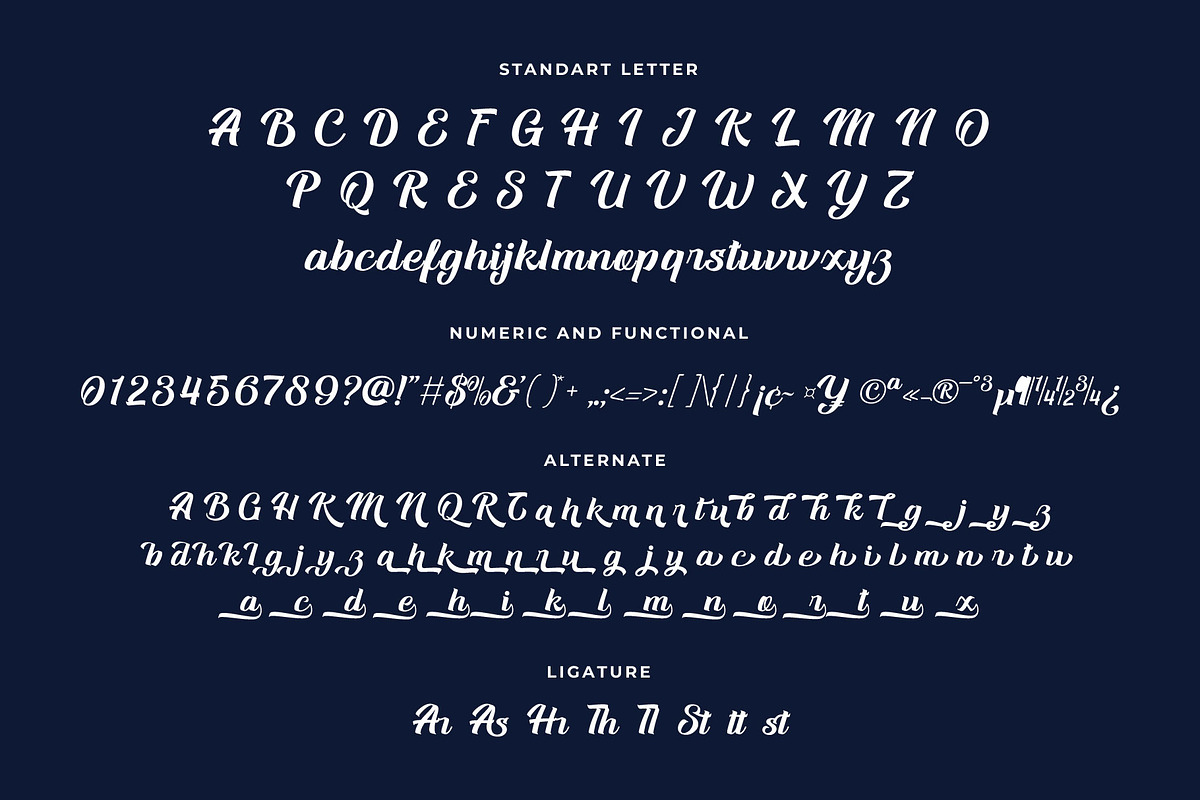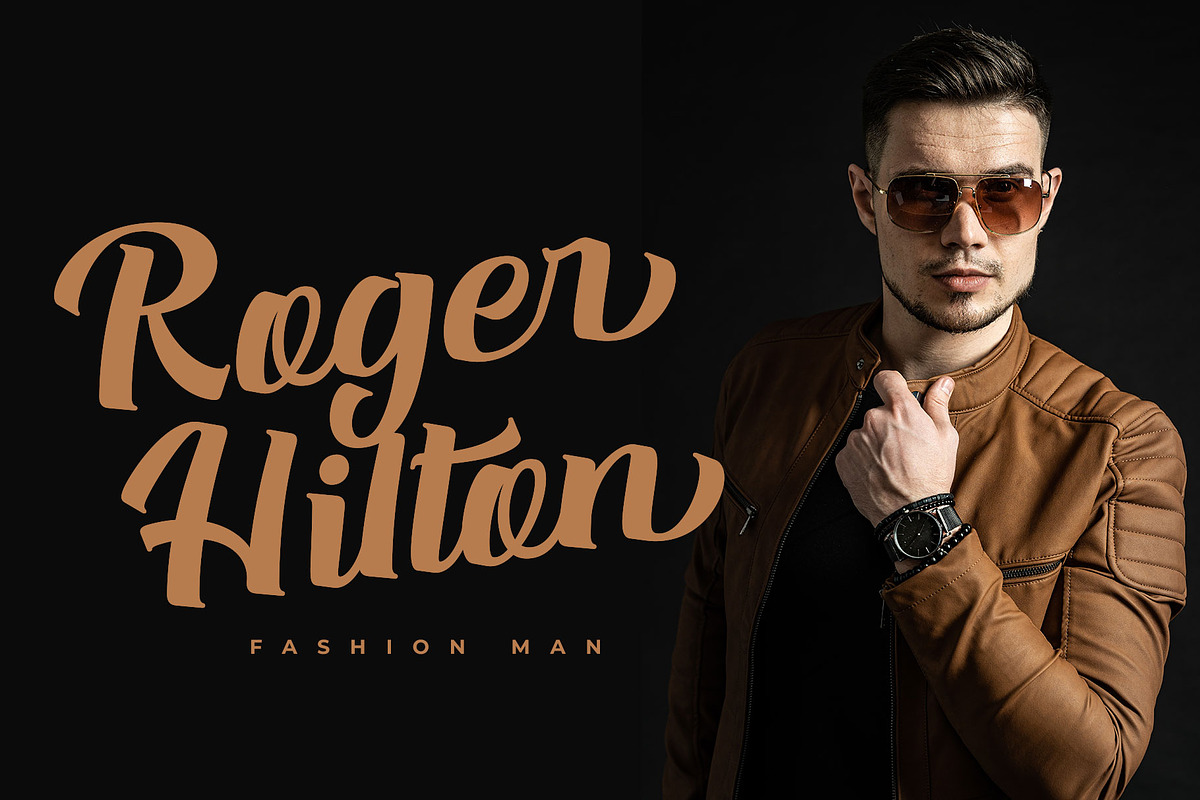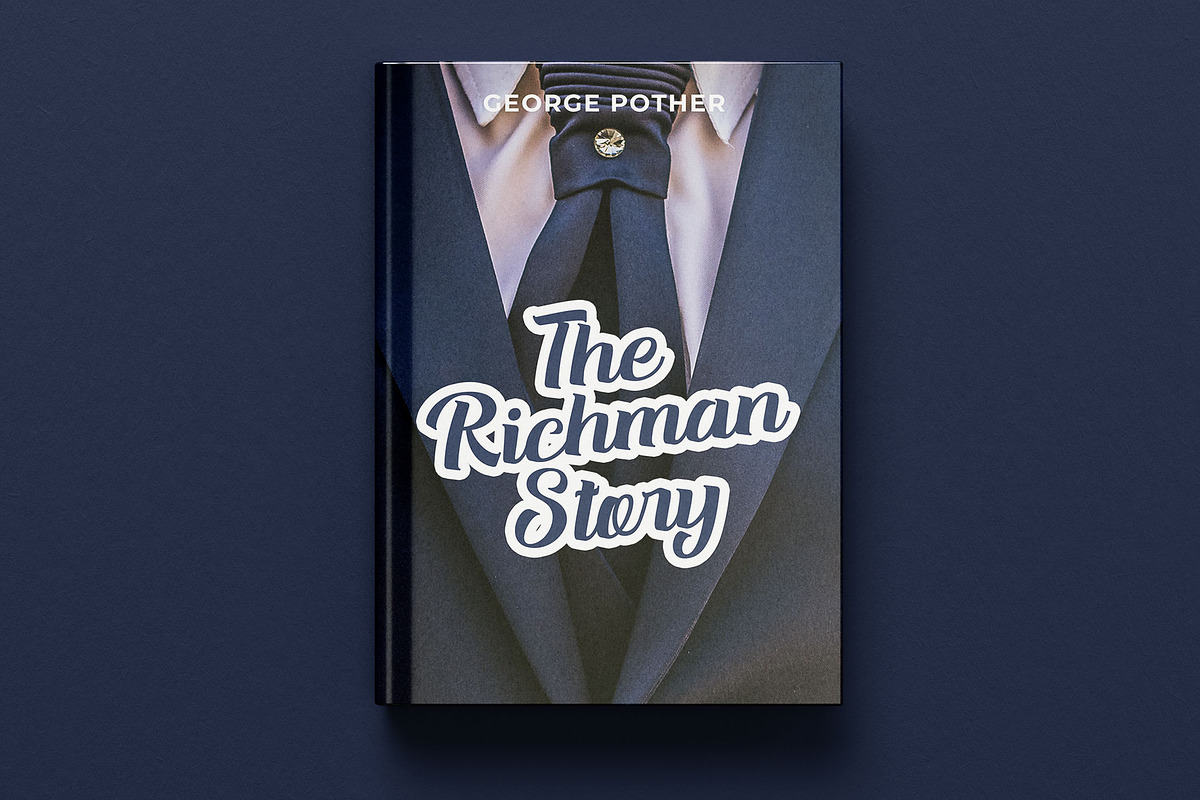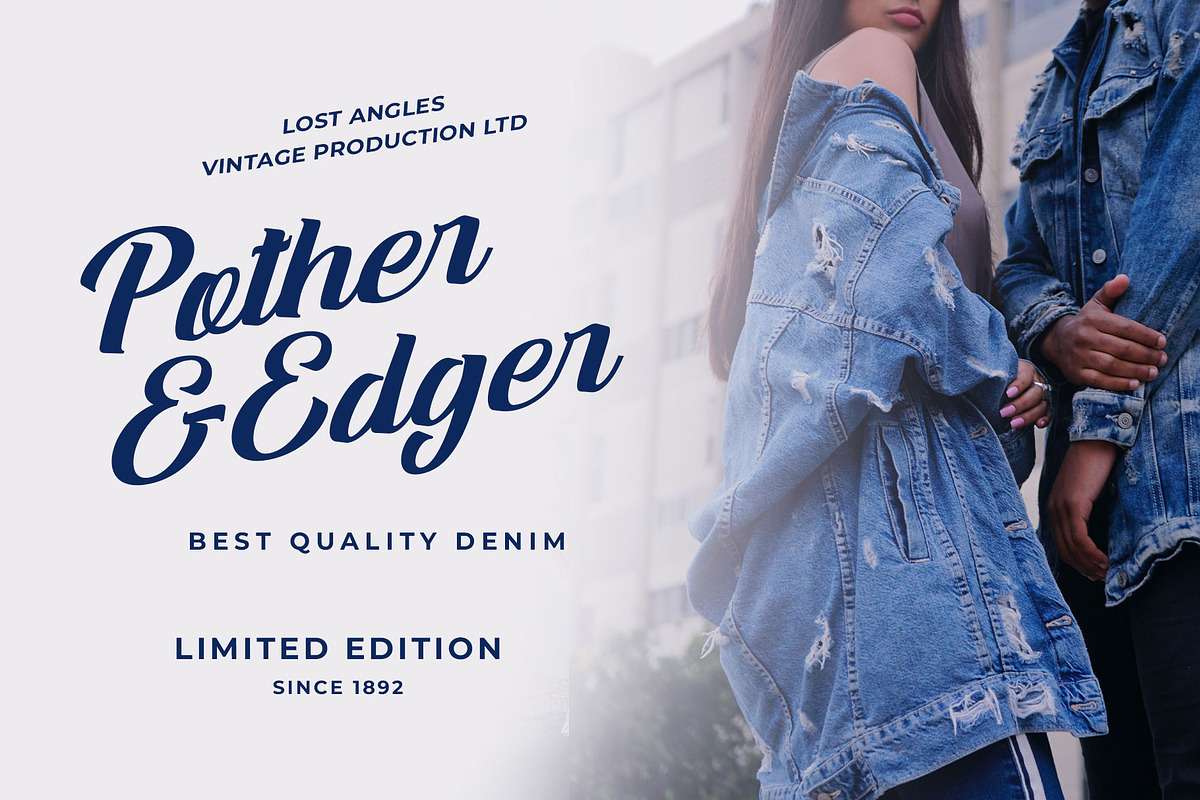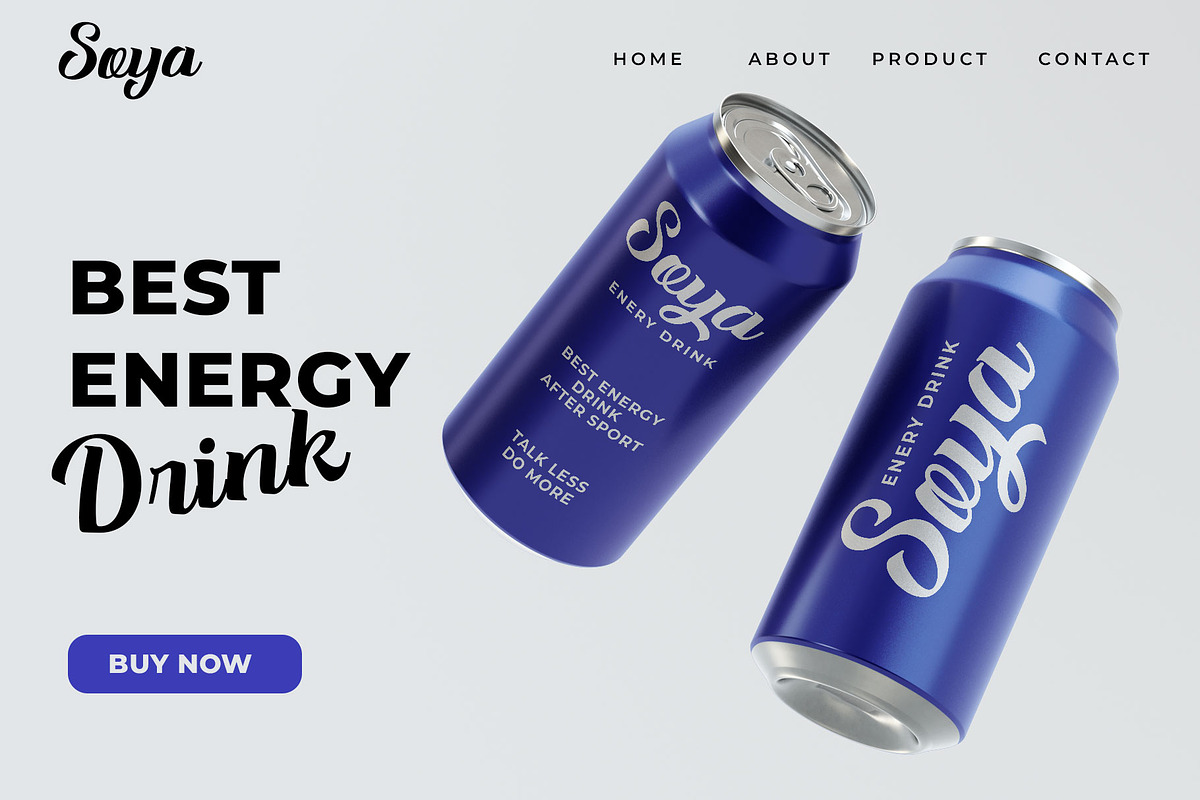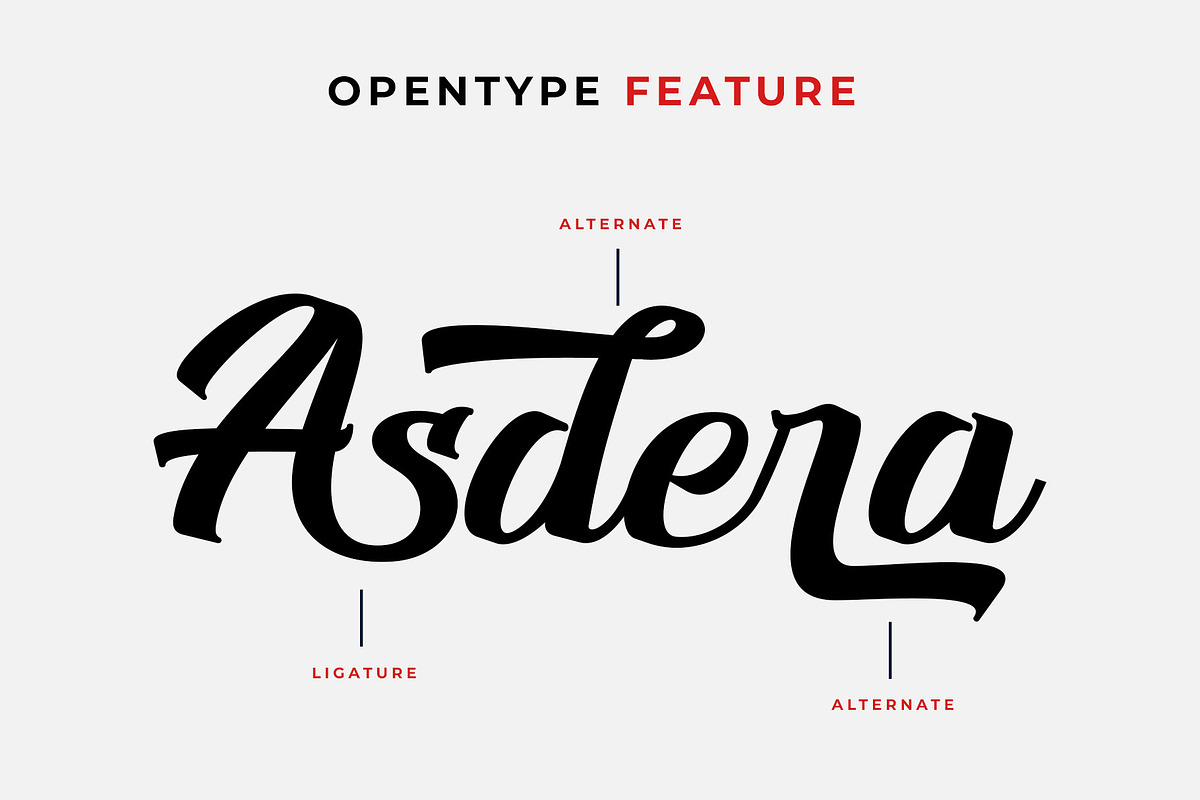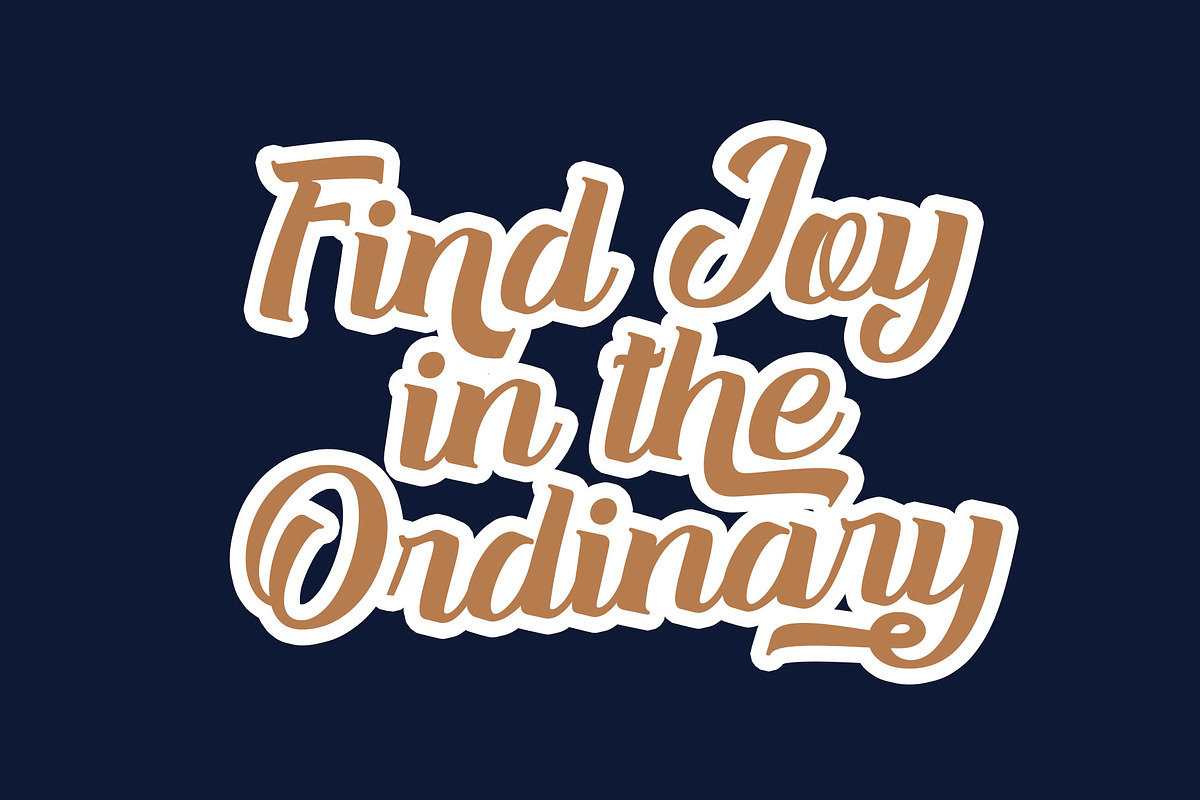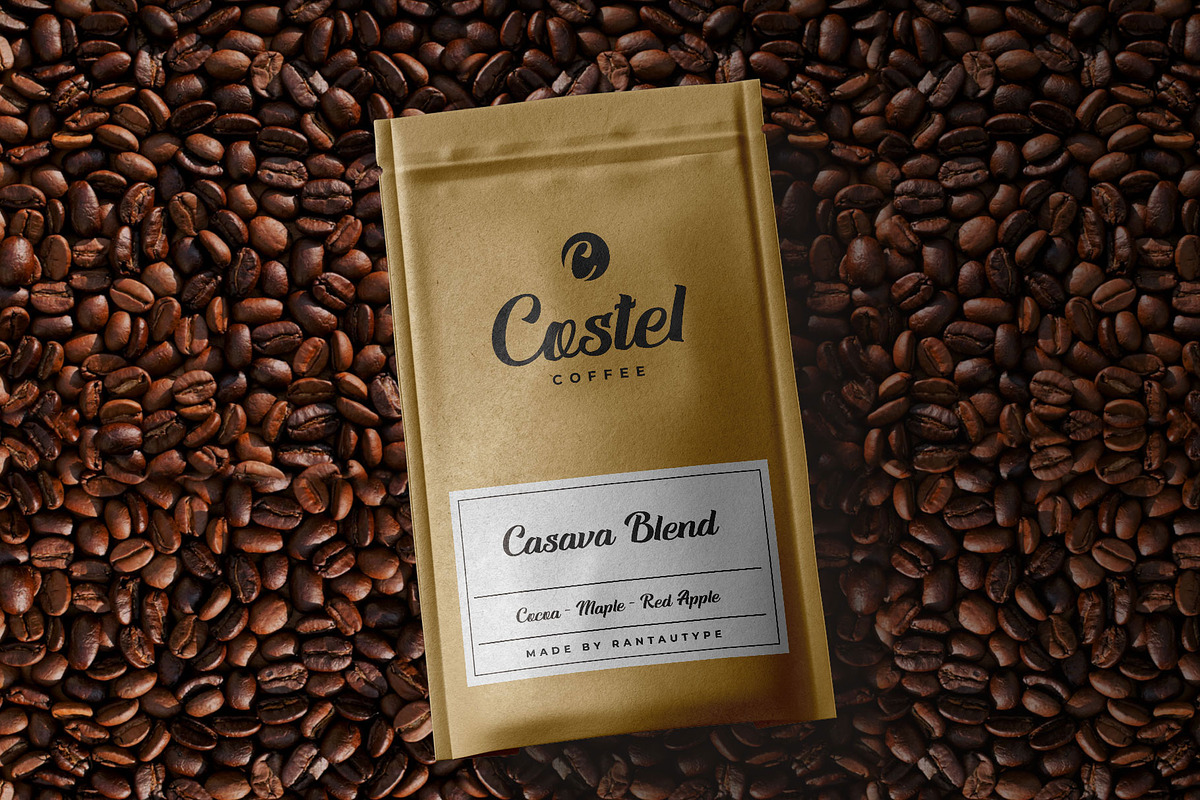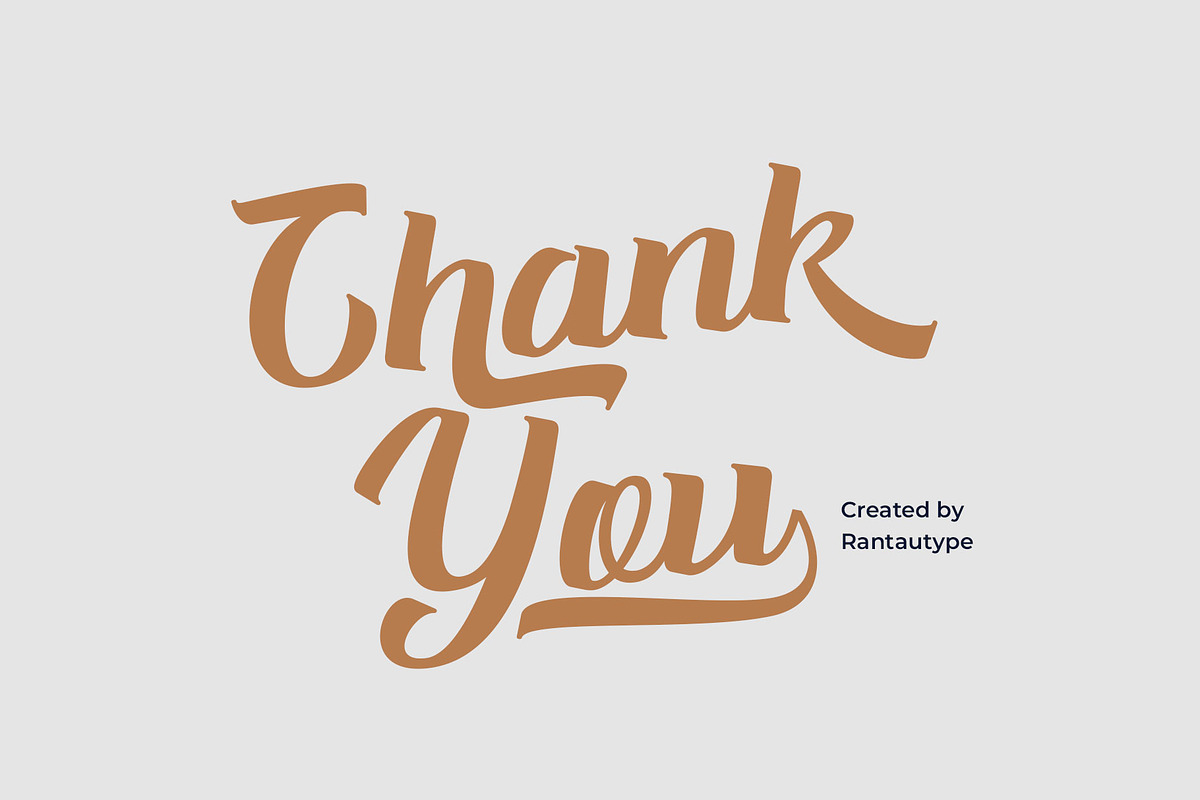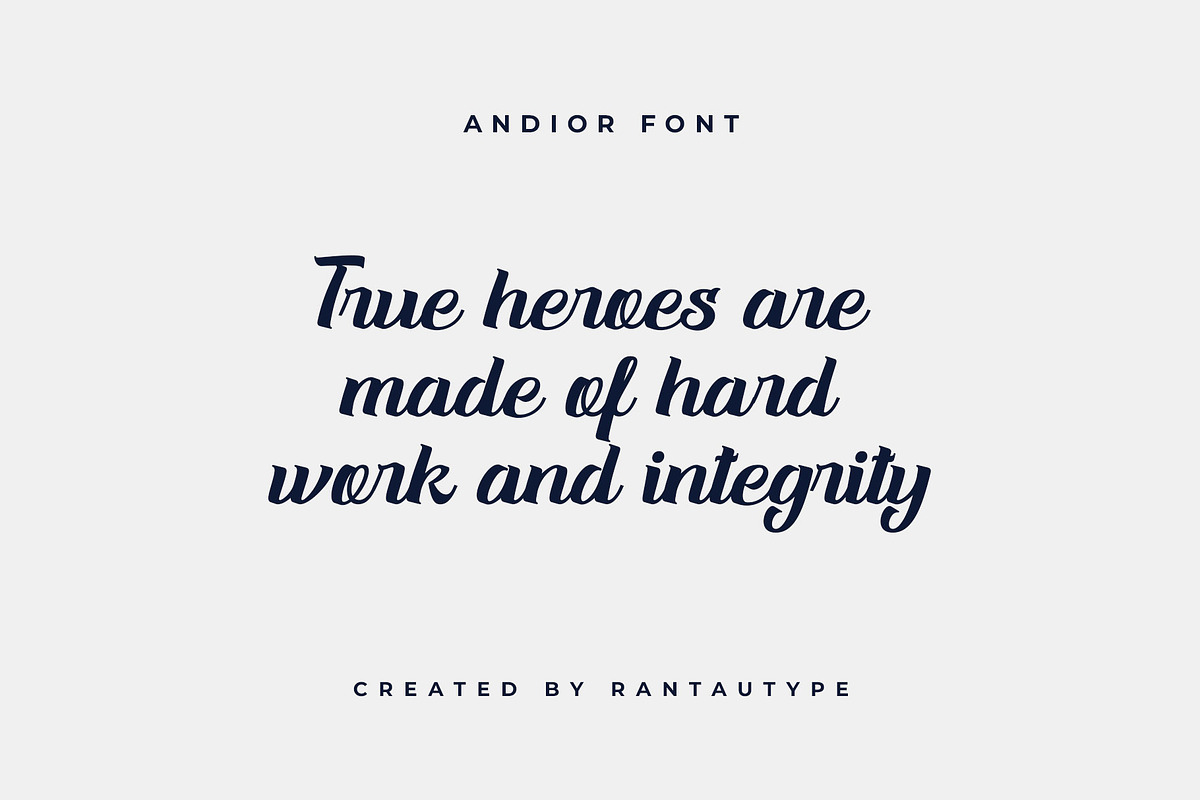
Andior Bold Script Font
Andior is a script font with strong style. Andior It come with a smooth shape and make you design more awesome. Andior is a beautiful choice for any creative endeavor, chic, lifestyle design such as logos, title, watermark on photography, cover, branding, display and magazine, wedding event, quotes, album cover, business card, corporate, business project and many other design project. Andior to elevate you branding!!
- Standar character A-Z and a-z
- Ligature and alternate
- Multilinggual accent support
- Opentype Feature